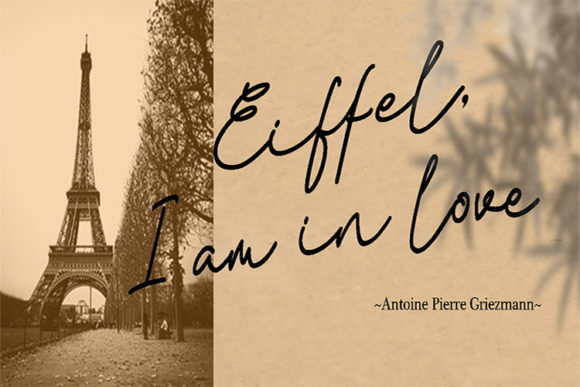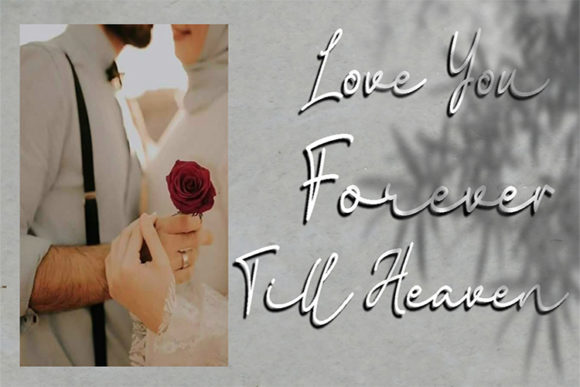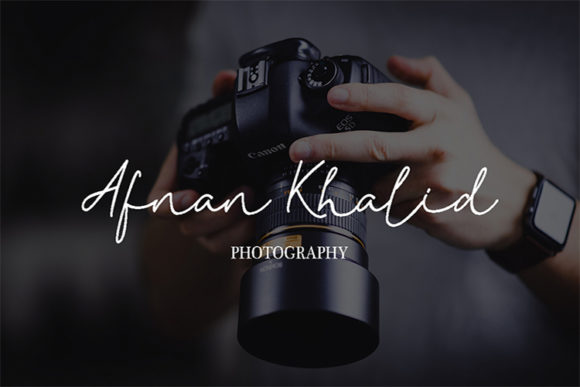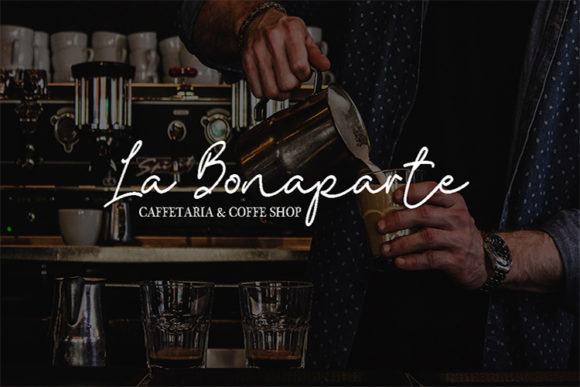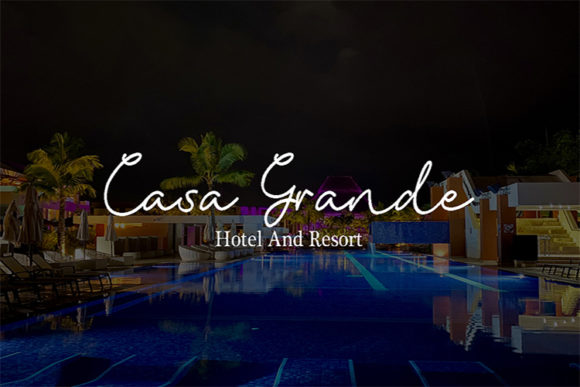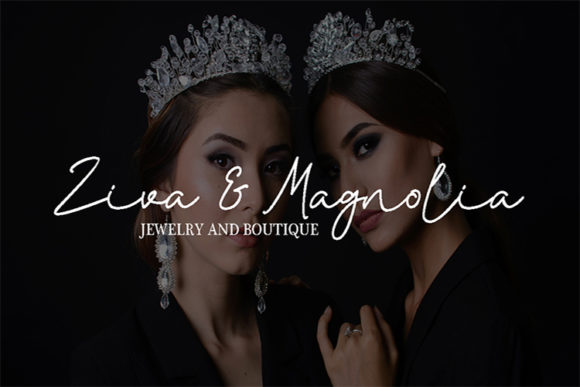
Epic Kantona Font: Elevate Your Designs with Elegance and Authenticity
Are you tired of using the same old fonts in your designs? Look no further than Epic Kantona, a stunningly elegant and sweet script that radiates authenticity. This beautiful font is sure to inspire your creative projects and give them a personal touch that’s hard to replicate with generic typefaces.
The Beauty of Epic Kantona
Epic Kantona is a script font that exudes sophistication and refinement. Its flowing lines and delicate curves give it a feminine and elegant feel that’s perfect for designs that require a touch of luxury. Whether you’re working on a branding project, a wedding invitation, or a packaging design, Epic Kantona is sure to make your work stand out.
What Makes Epic Kantona Special?
So, what sets Epic Kantona apart from other fonts? Here are a few key features that make it a standout:
- Elegant and Refined: Epic Kantona’s sleek lines and curves give it a sophisticated look that’s perfect for high-end designs.
- Authentic and Personal: This font has a unique, hand-crafted feel that’s sure to add a personal touch to your designs.
- Versatile: Epic Kantona is suitable for a wide range of design projects, from branding and advertising to packaging and stationery.
- Easy to Read: Despite its elegant appearance, Epic Kantona is surprisingly easy to read, making it perfect for body text as well as headlines.
Epic Kantona is more than just a font – it’s a design inspiration. Its unique look and feel are sure to spark your creativity and inspire you to create something truly special. Here are a few ideas to get you started:
- Wedding Invitations: Epic Kantona is perfect for wedding invitations, ceremony programs, and other wedding-related designs.
- Branding and Packaging: Use Epic Kantona to create elegant and sophisticated branding materials, such as business cards, letterheads, and product packaging.
- Stationery and Journaling: Add a touch of elegance to your stationery and journaling projects with Epic Kantona.
- Digital Designs: Epic Kantona can also be used for digital designs, such as social media graphics, blog headers, and email newsletters.
Tips for Using Epic Kantona
To get the most out of Epic Kantona, here are a few tips to keep in mind:
- Use it sparingly: Epic Kantona is a statement font, so use it sparingly to add emphasis and elegance to your designs.
- Pair it with a sans-serif: Pair Epic Kantona with a sans-serif font to create a striking contrast and add visual interest to your designs.
- Experiment with colors: Epic Kantona looks beautiful in a range of colors, from rich jewel tones to soft pastels.
- Pay attention to spacing: Make sure to leave enough space between lines and around text to allow Epic Kantona’s elegant lines to shine.
Epic Kantona is a truly special font that’s sure to elevate your designs and inspire your creativity. With its elegant and refined appearance, authentic and personal feel, and versatility, it’s the perfect choice for designers and crafters looking to add a touch of luxury to their work. So why wait? Get inspired by Epic Kantona today and see the difference it can make in your designs!